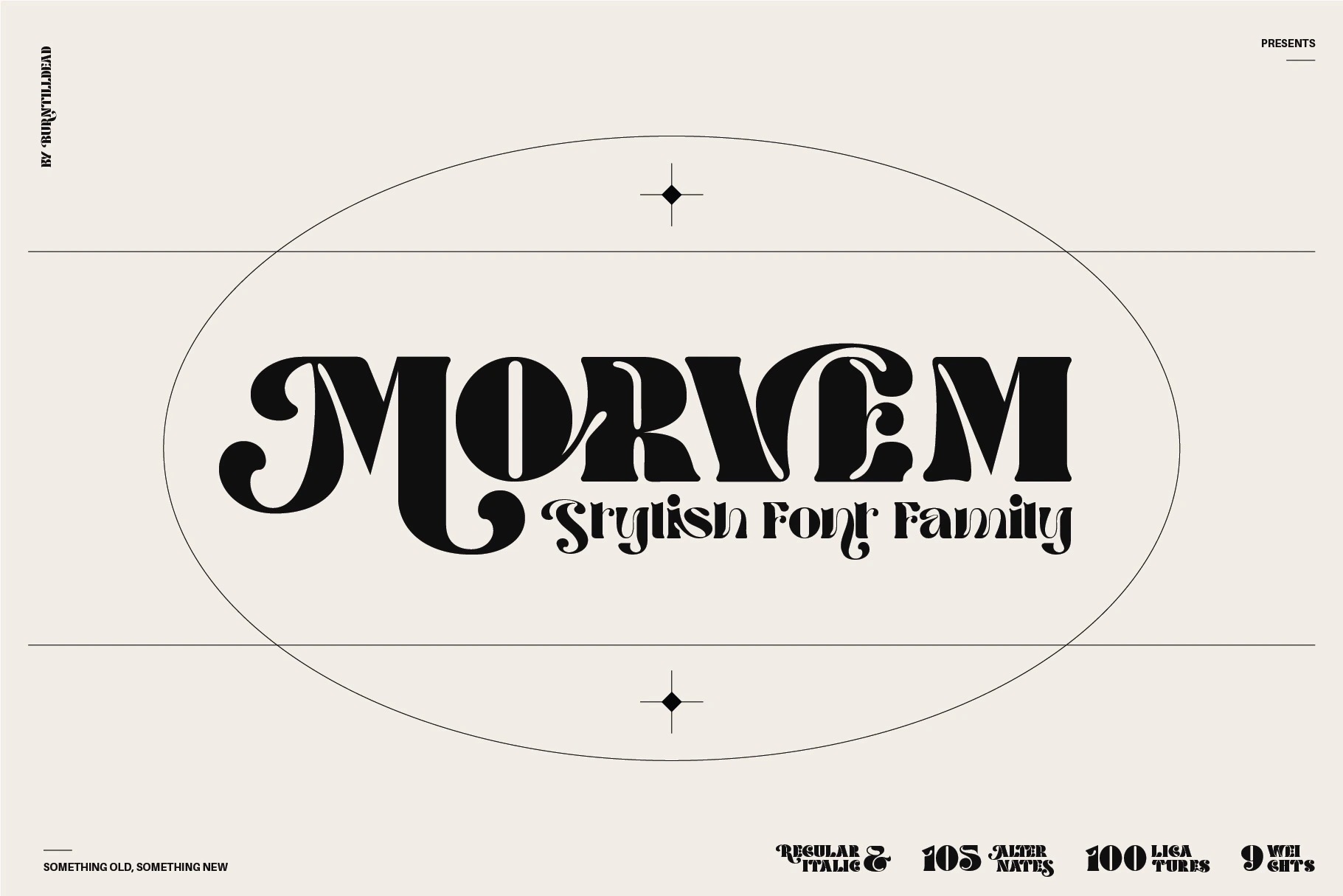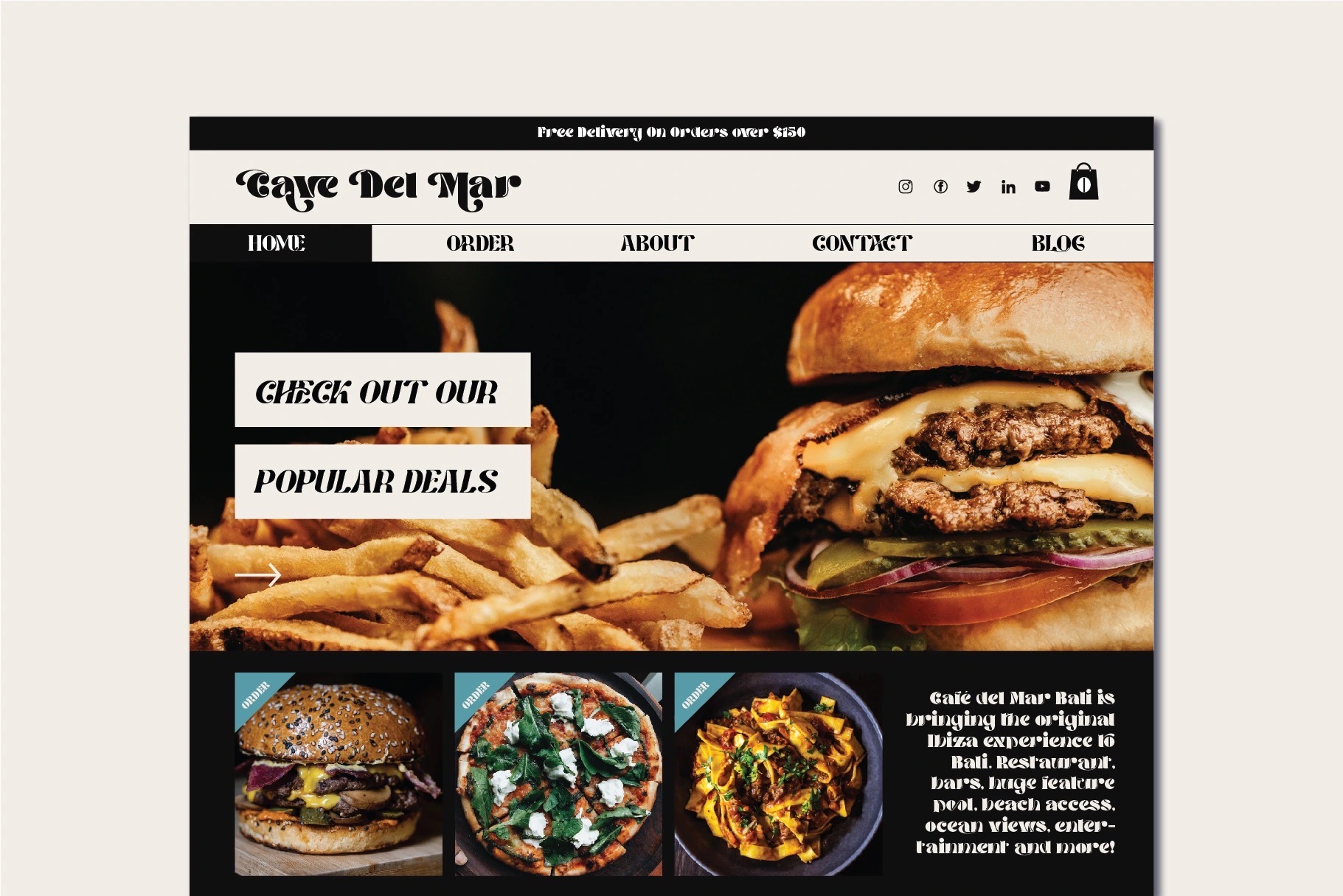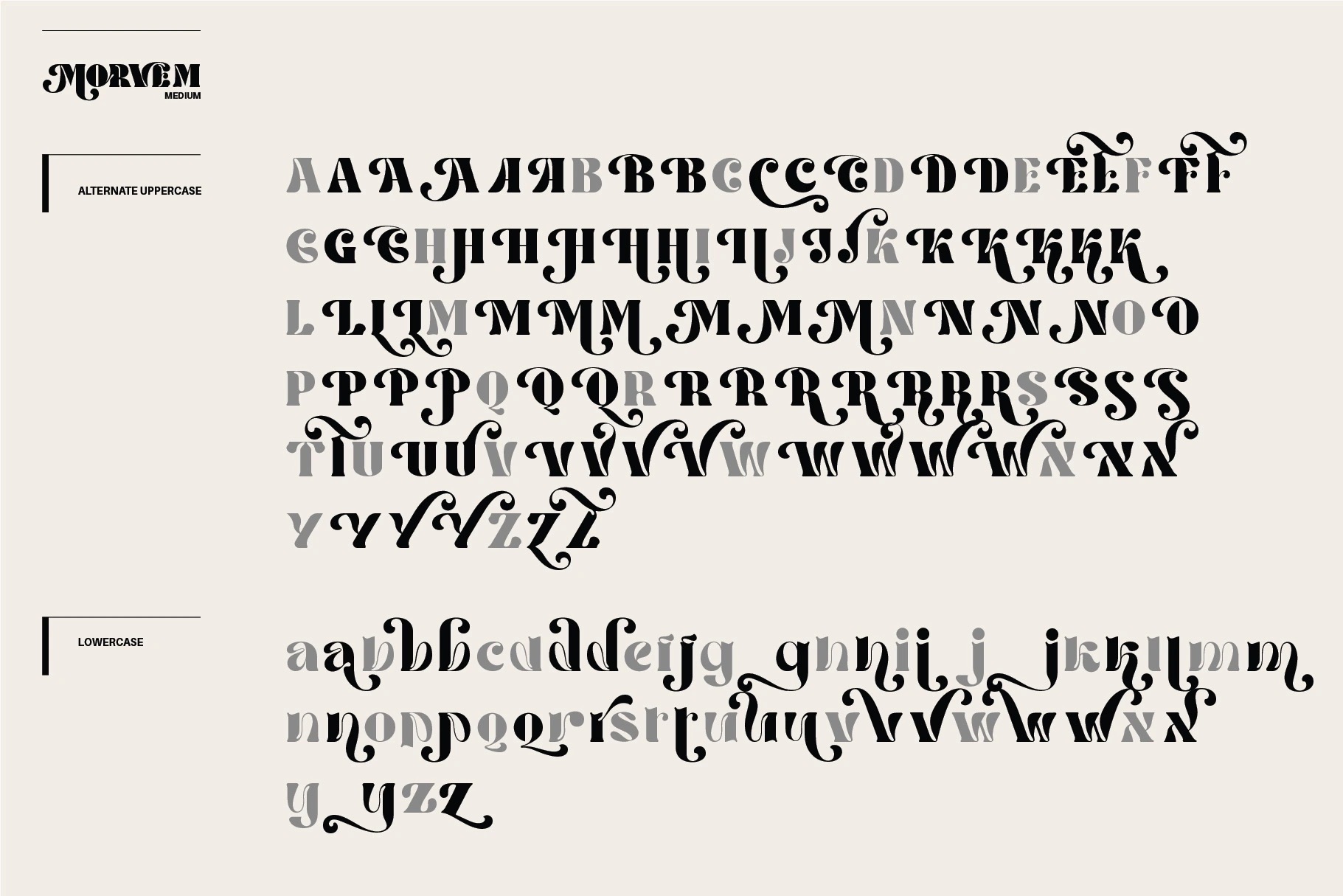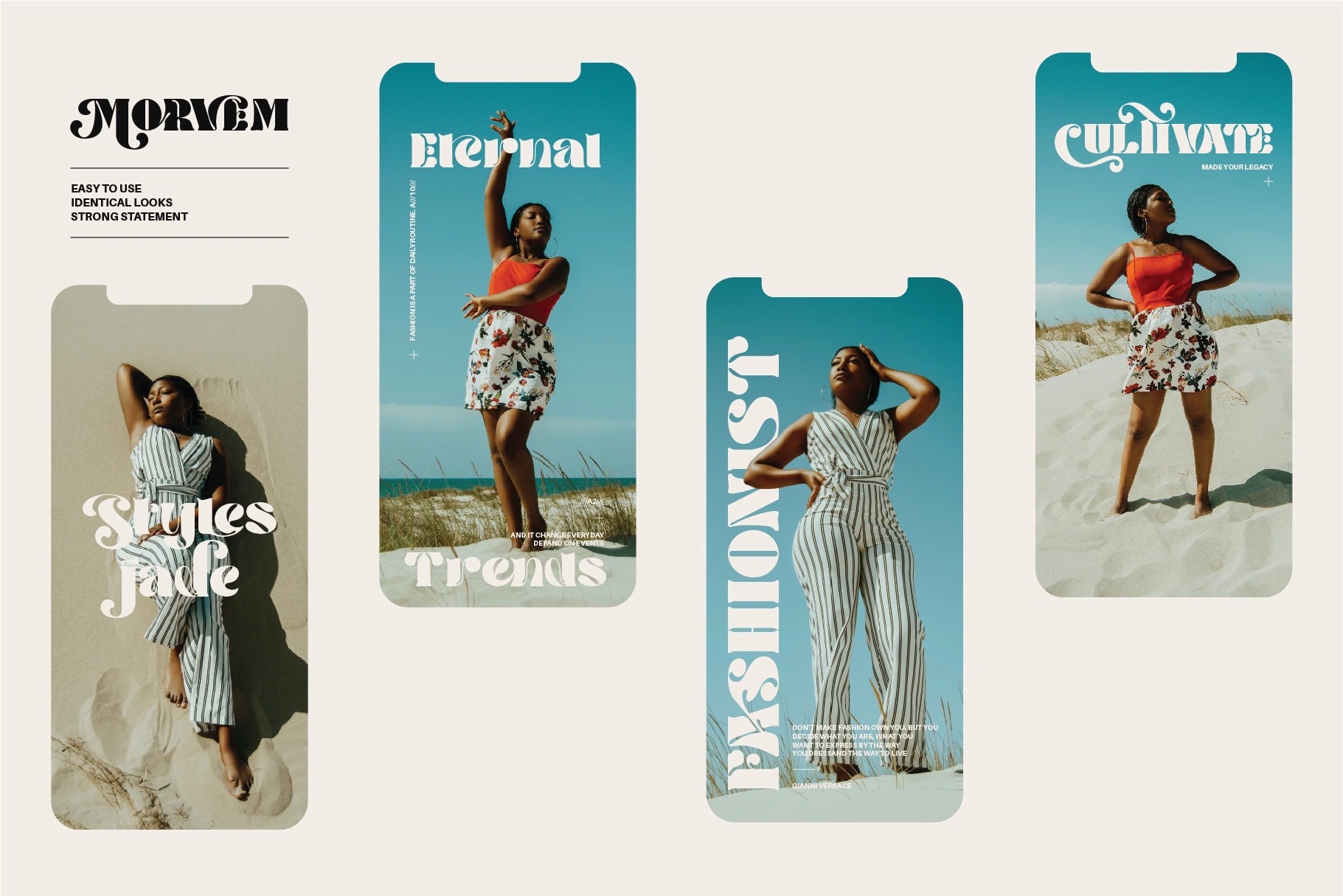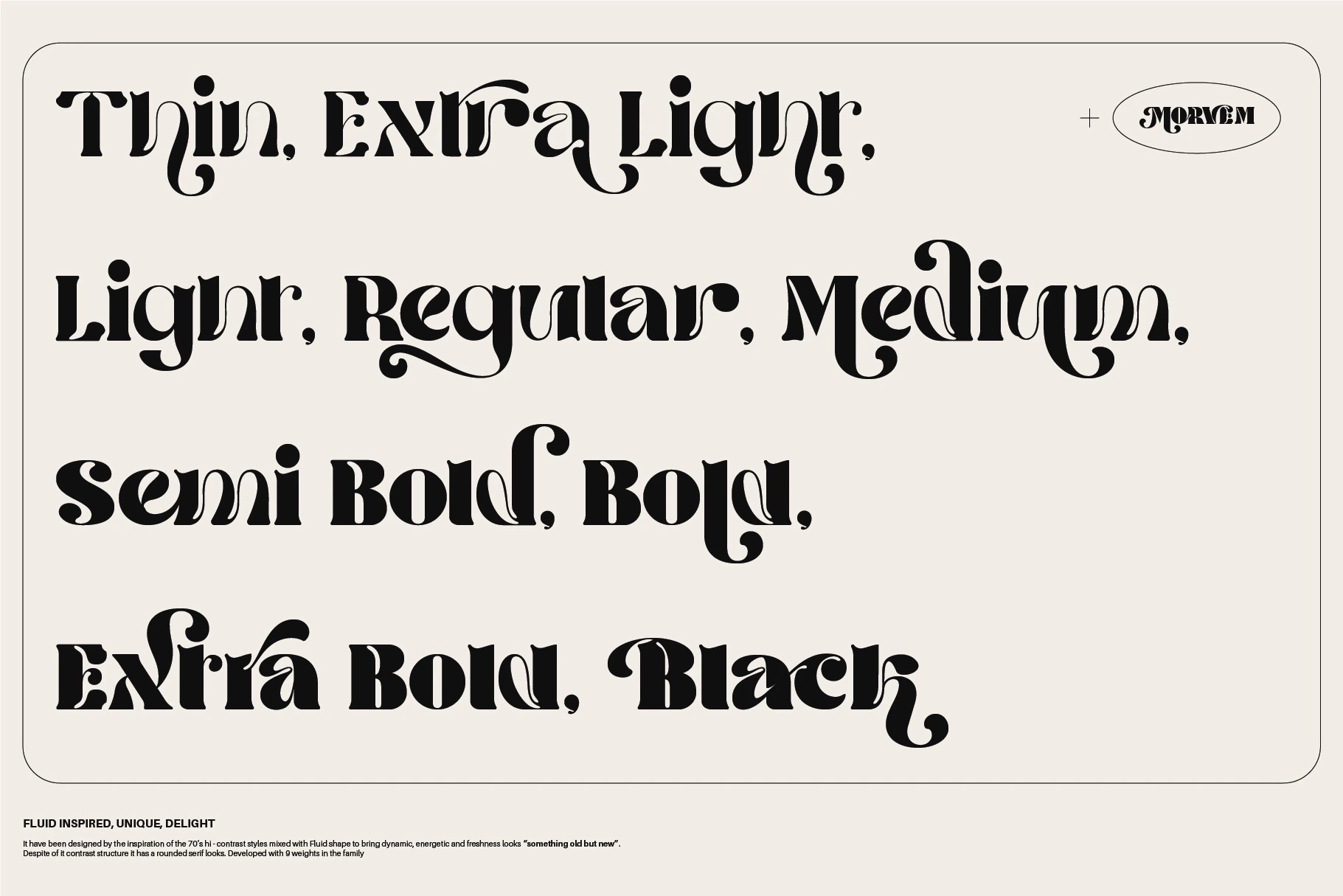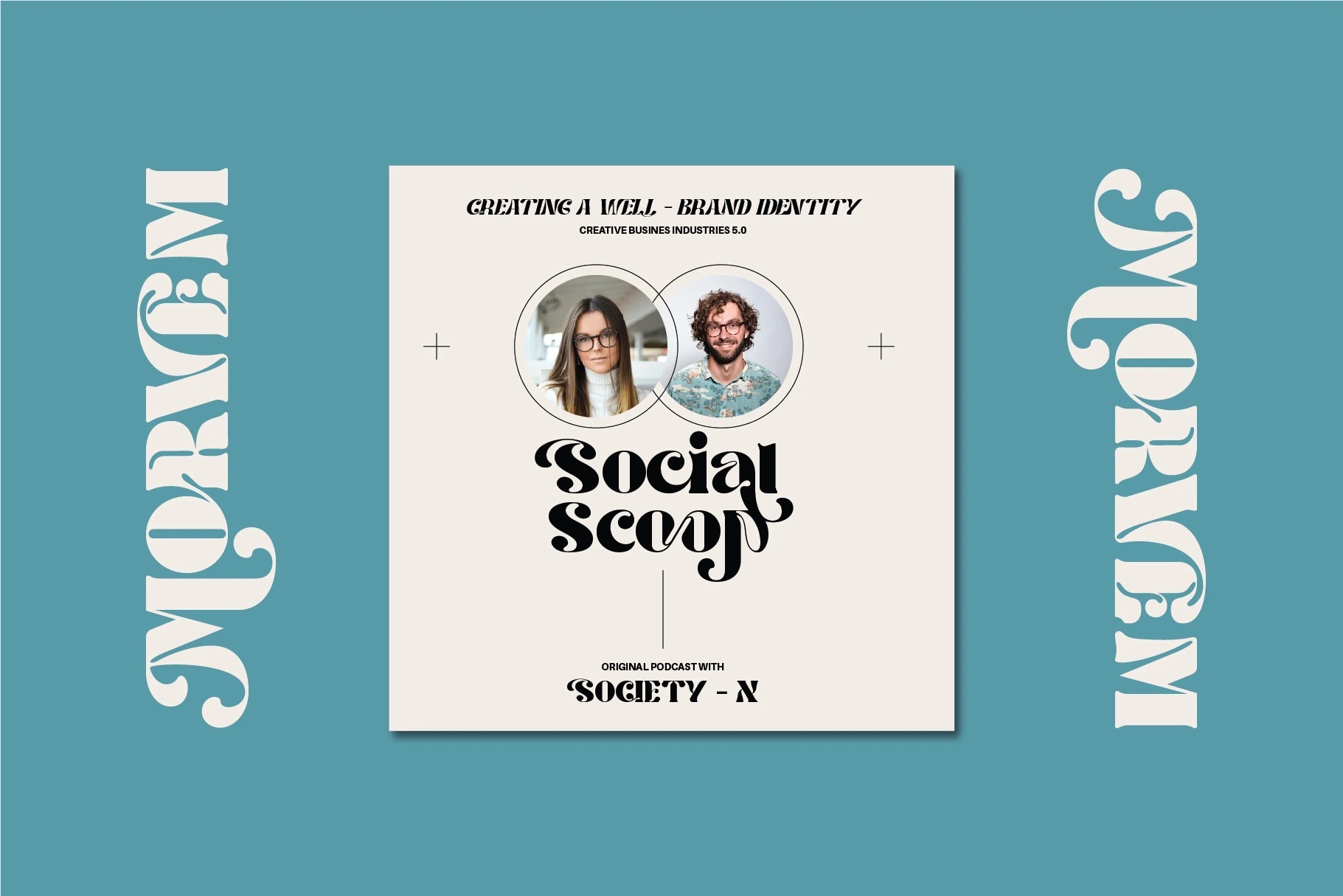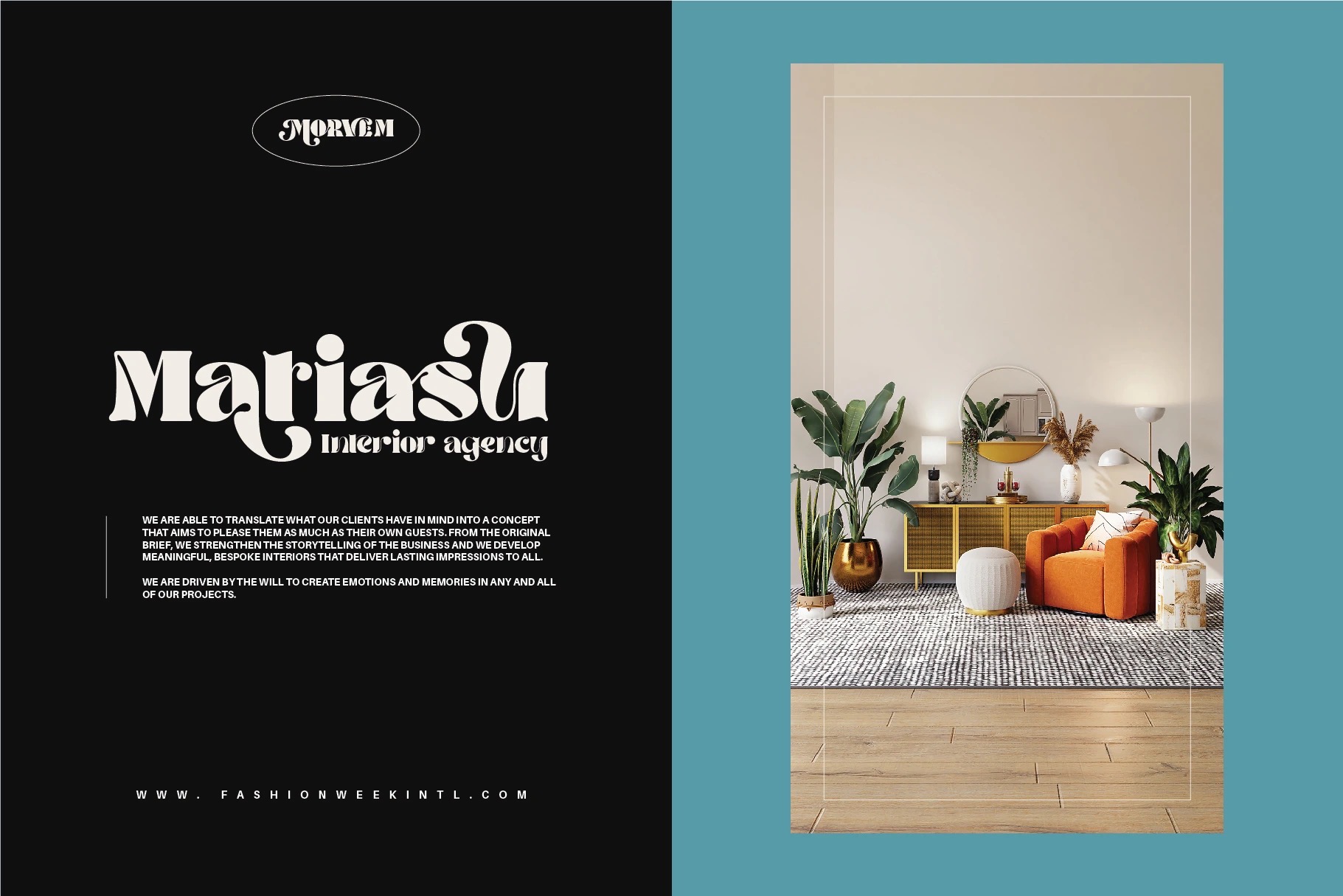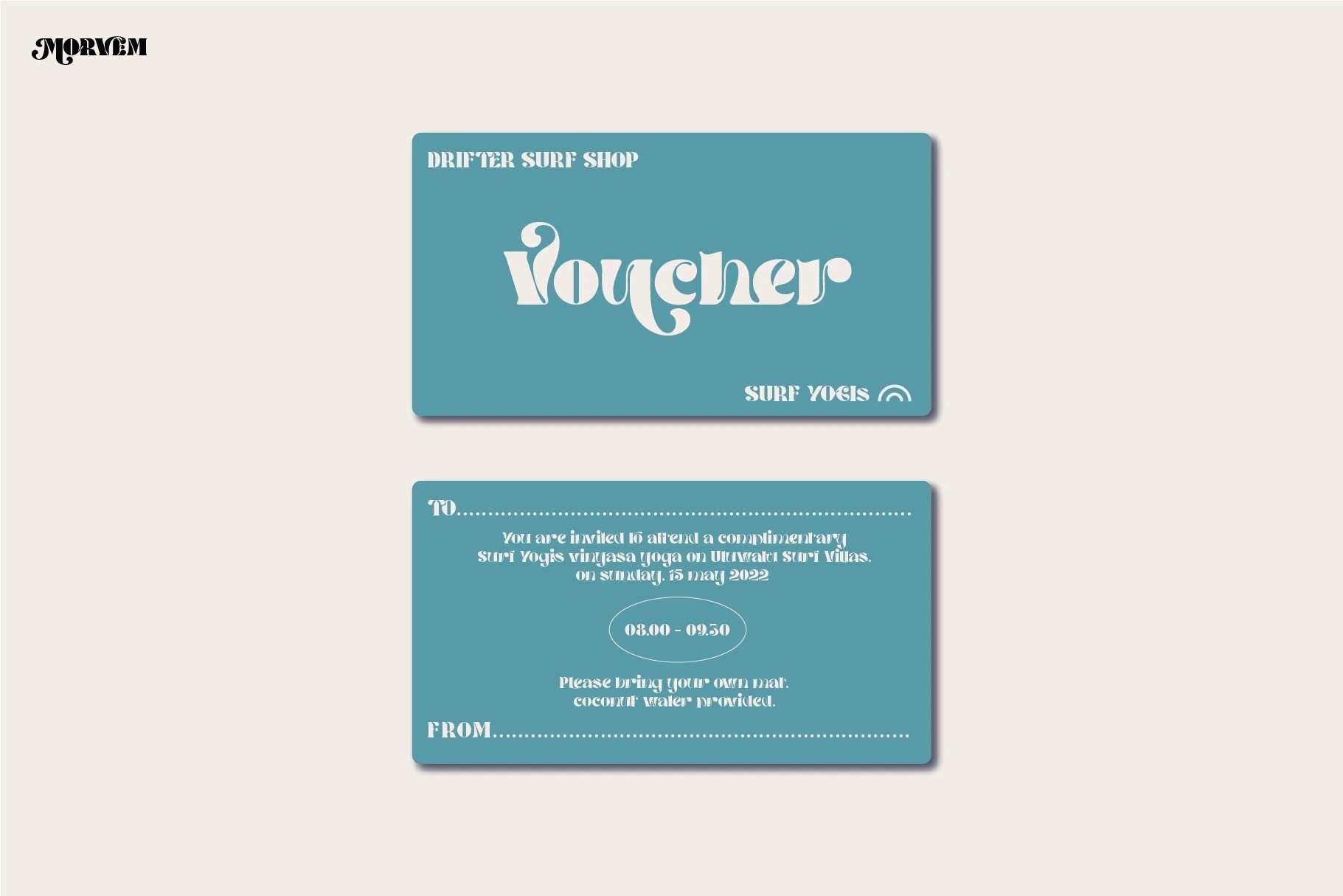
Morvem
Proudley Presents Morvem font family. Inspired by hi contrast bold retro typeface on early 70’s-80’s. Had experiment adding fluid shape to make it more modern and dynamic, the idea is make a balance blend of something old, something new.
This font is powered with opentype features, such as;
• 100 ligatures, 2 characters will automatically changed into special characters. Easy to use right, no need magic skill.
• 105 alternates characters to use (uppercase & lowercase).
• A – Z set (Uppercase & Lowercase)
• Number
• Punctuation
• Alternates
• Ligatures
• Multilingual